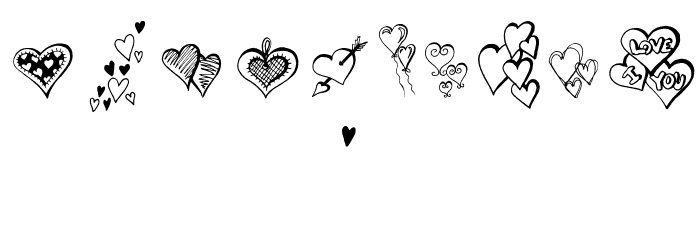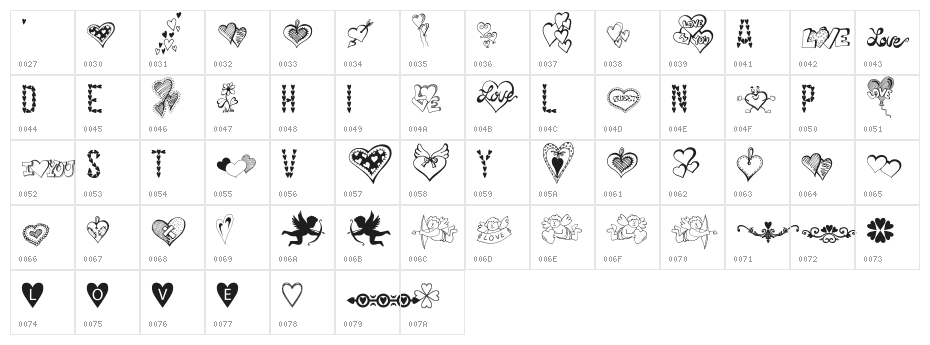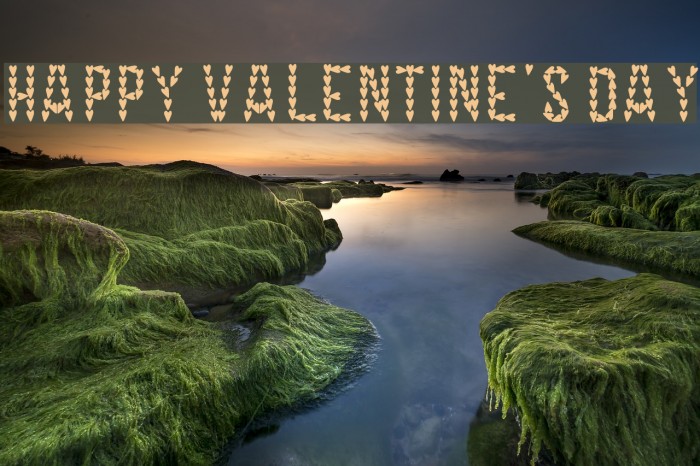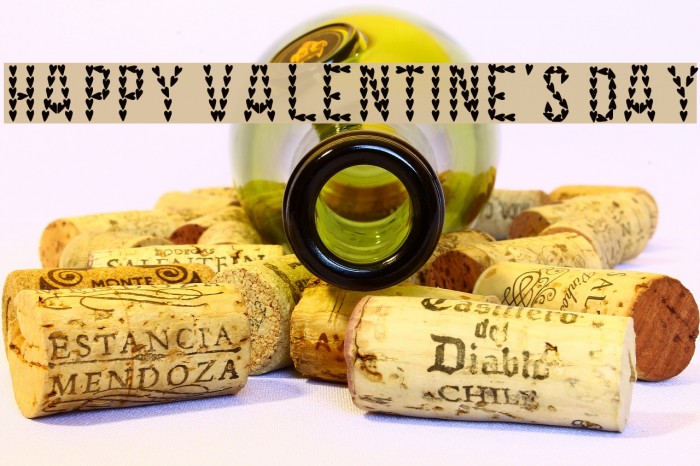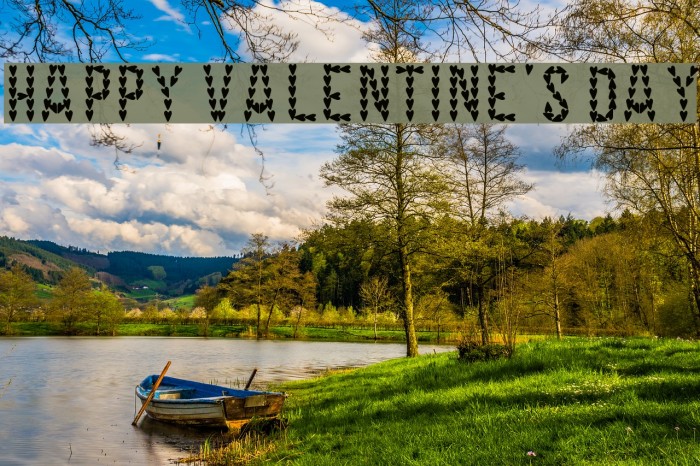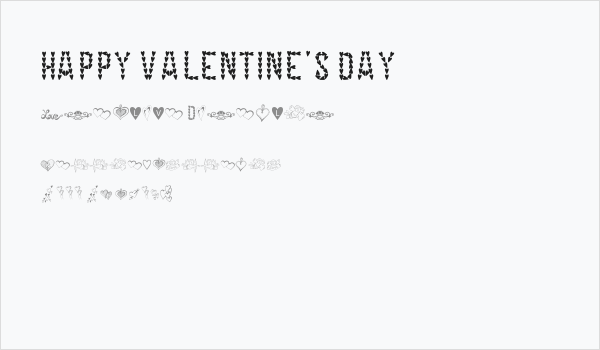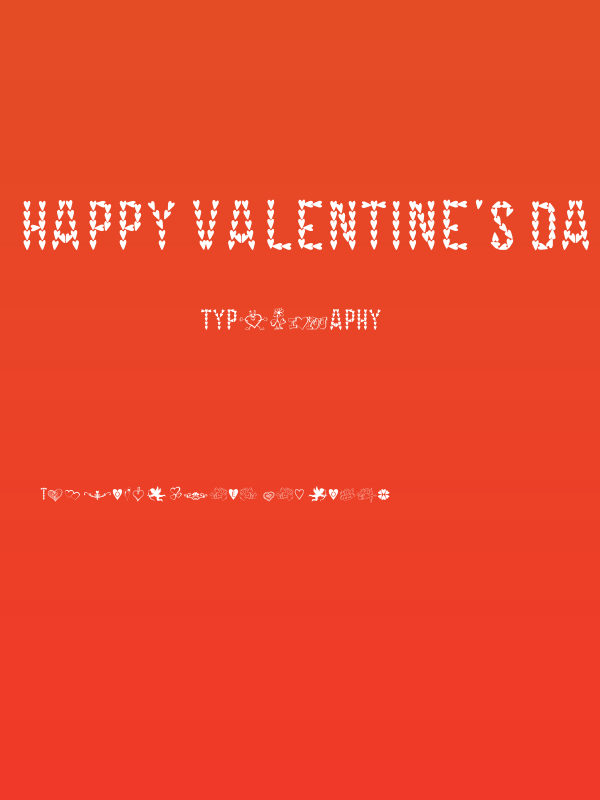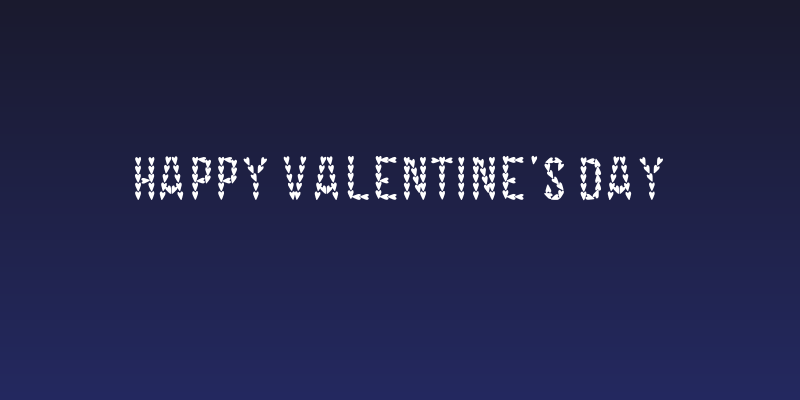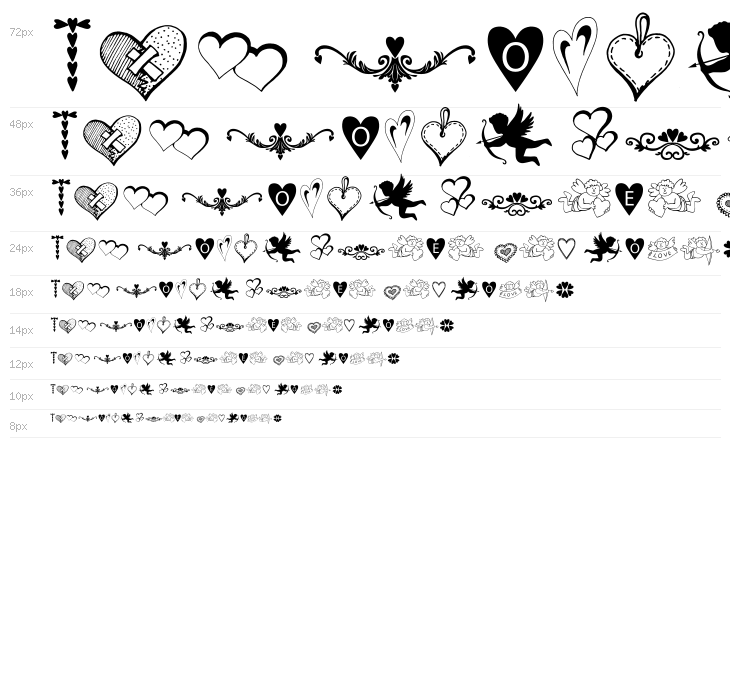
HAPPY VALENTINE'S DAY Font
HAPPY VALENTINE'S DAY Description
This decorative font is infused with romantic and whimsical elements, perfect for Valentine's Day themes. Each character is creatively designed with heart motifs, floral patterns, and playful embellishments. The uppercase letters feature intricate designs, often incorporating the word 'love' or heart shapes directly into the letterforms. The lowercase letters continue this theme with a variety of heart and love-inspired decorations. Numbers and special characters are adorned with similar motifs, making them ideal for festive and romantic designs. The overall style is playful and decorative, capturing the essence of love and celebration.